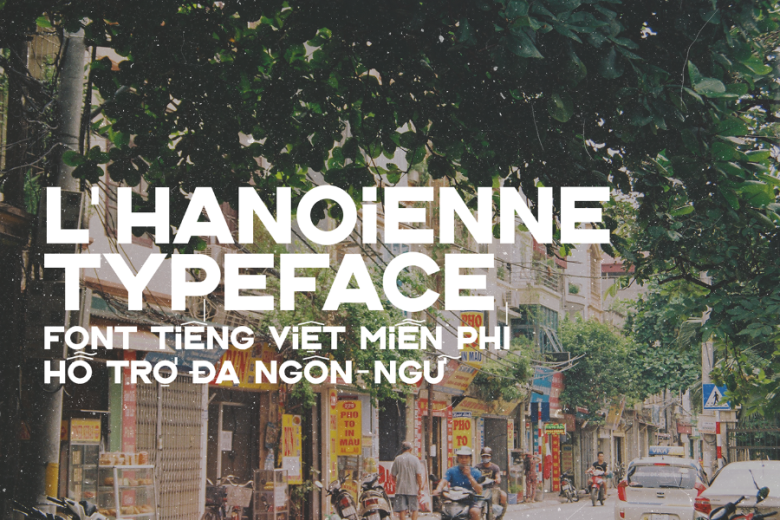
L’Hanoienne Typeface
Introducing L’Hanoienne Typeface! L’Hanoienne Font designed by ZinArtwork. L’Hanoienne (tiếng Việt: cô gái Hà Nội, English: Hanoi Lady) is a typeface created by Manh Nguyen, a type designer based in Vietnam. In an effort of bringing back the old style yet futuristic vibes of hand-painting retro panels and banners which are iconic in a long time in Vietnam street in 20th century, after the famous Classique Saigon, Manh Nguyen decided to create another typeface to paying homage to another city of his homeland.